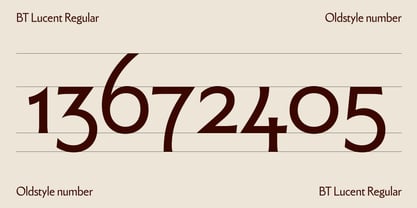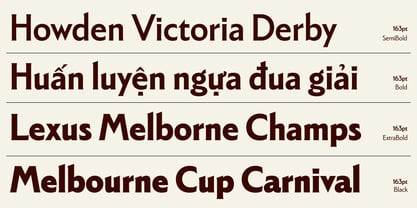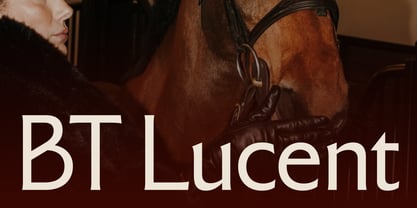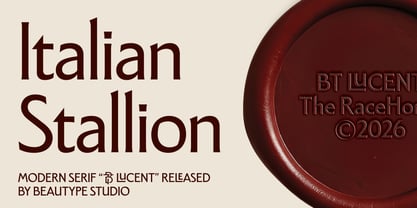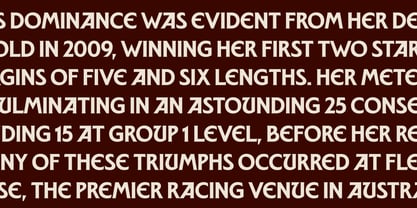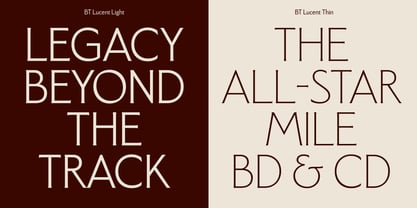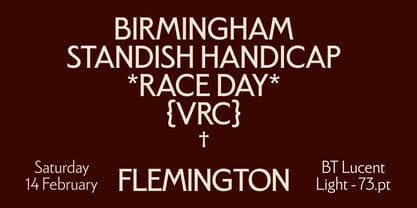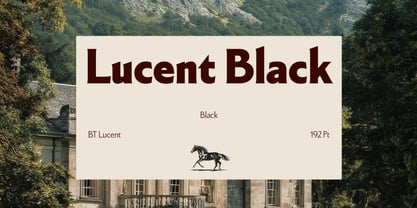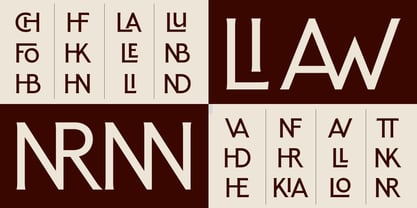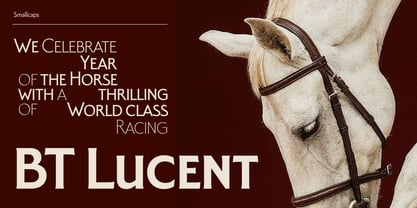
BT Lucent
by BeauType
Inspired by the heritage and enduring stature of mid-century dynasties, BT Lucent captures the essence of calm authority and timeless elegance. The typeface radiates a formal, majestic aura, yet remains grounded in the quiet modesty of traditional ateliers. With letterforms built to mimic engraving techniques, BT Lucent delivers a palpable handcrafted feel, steering away from sterile digital perfection to embrace the soul of human craftsmanship.
BeauType, a Vietnamese type foundry under Beau Agency, is dedicated to crafting elegant and functional typefaces. They delve into typographic research and offer a range of type-related services. Their fonts are crafted to enhance digital and print designs, catering to diverse branding and creative needs. BeauType's commitment to quality and innovation makes them a leading voice in the Vietnamese type design scene.